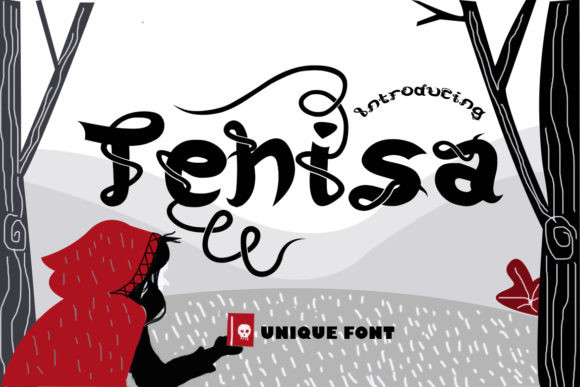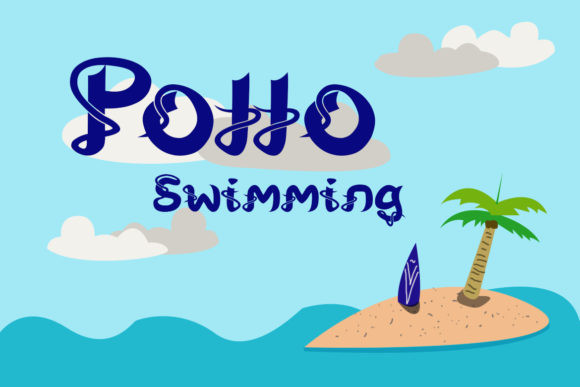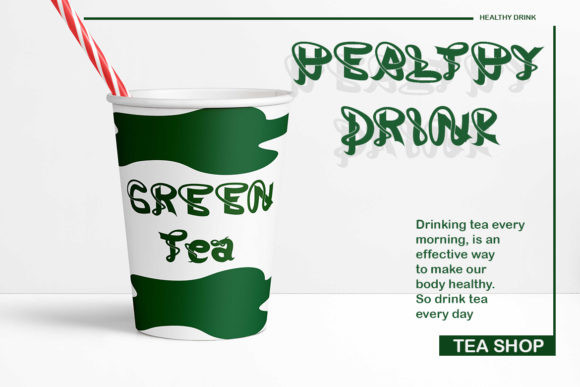
Tehisa Font
Tehisa is a lovely monoline font with a unique look. It features cute ligatures and alternates that will make your designs standout.
It is perfectly suited for a wide variety of crafting projects, be it branding, signature, logos, social media posts and much more!